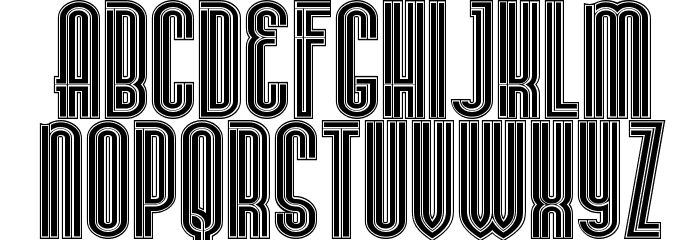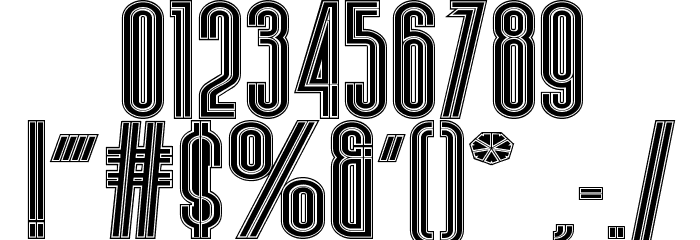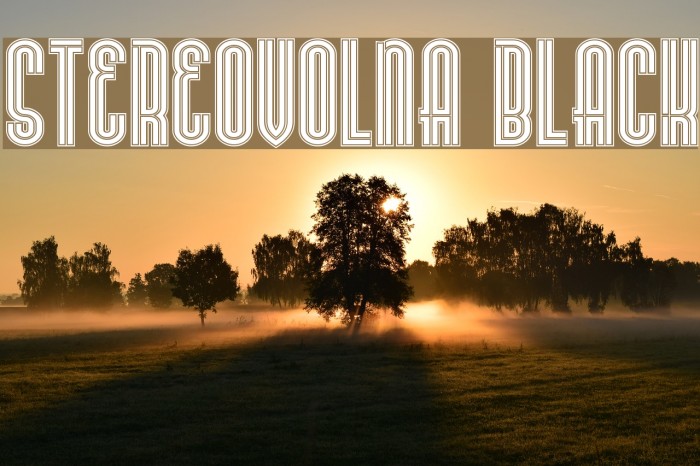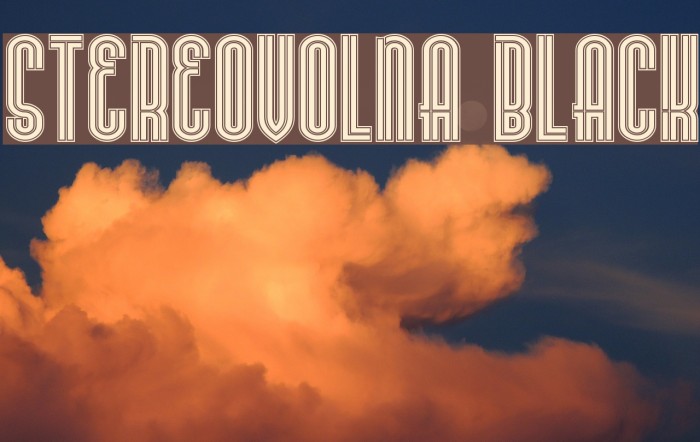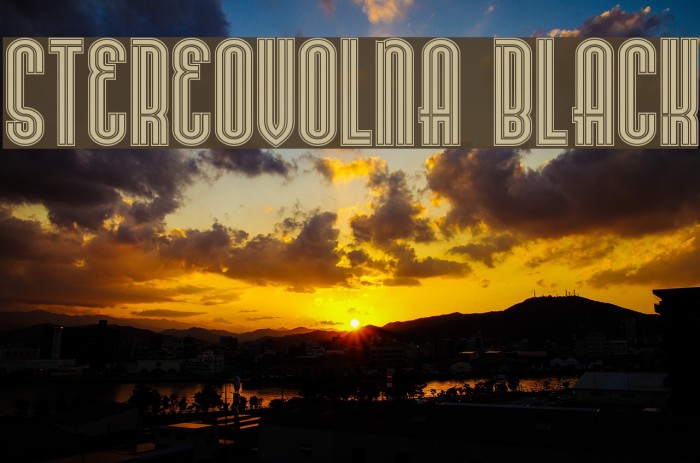
Stereovolna Black Font
This font features a bold, geometric design with a distinct three-dimensional effect created by layered outlines. The uppercase and lowercase letters maintain a consistent height, contributing to a uniform appearance. The characters are constructed with straight lines and sharp angles, giving them a modern and futuristic feel. The numerals and special characters follow the same design principles, ensuring cohesion across all elements. The font's unique style makes it stand out, ideal for projects that require a strong visual impact.
A bold, geometric font with a three-dimensional layered outline effect.